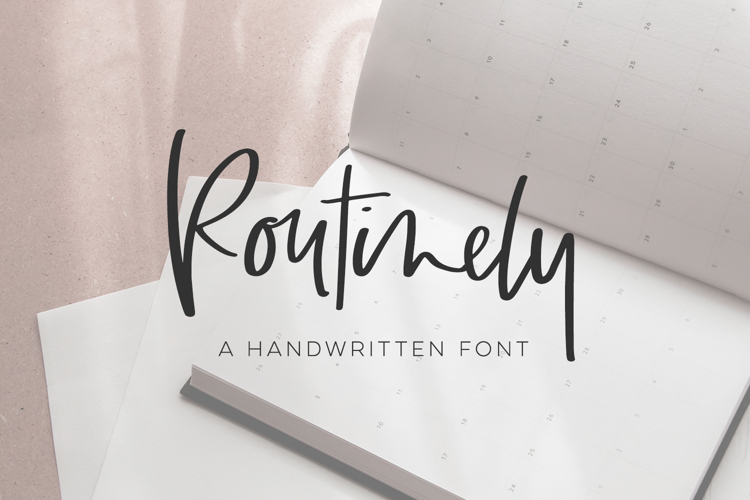
Introducing Routinely Script, a handwritten signature style font. This stylish font features a messy, casual look.
Routinely Script is best for:
- website design + website accents - think design blogs, travel blogs, fashion blogs, & more